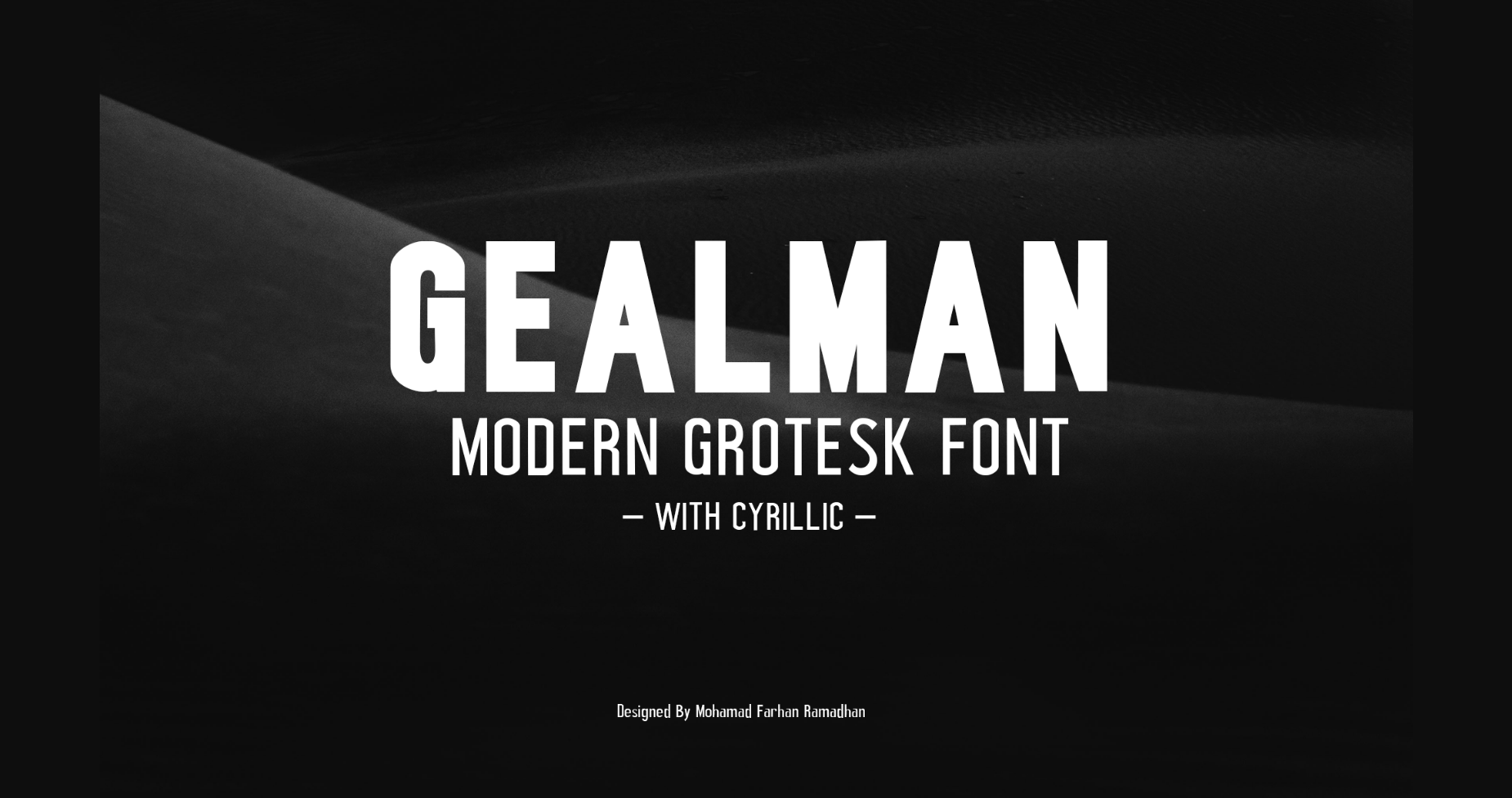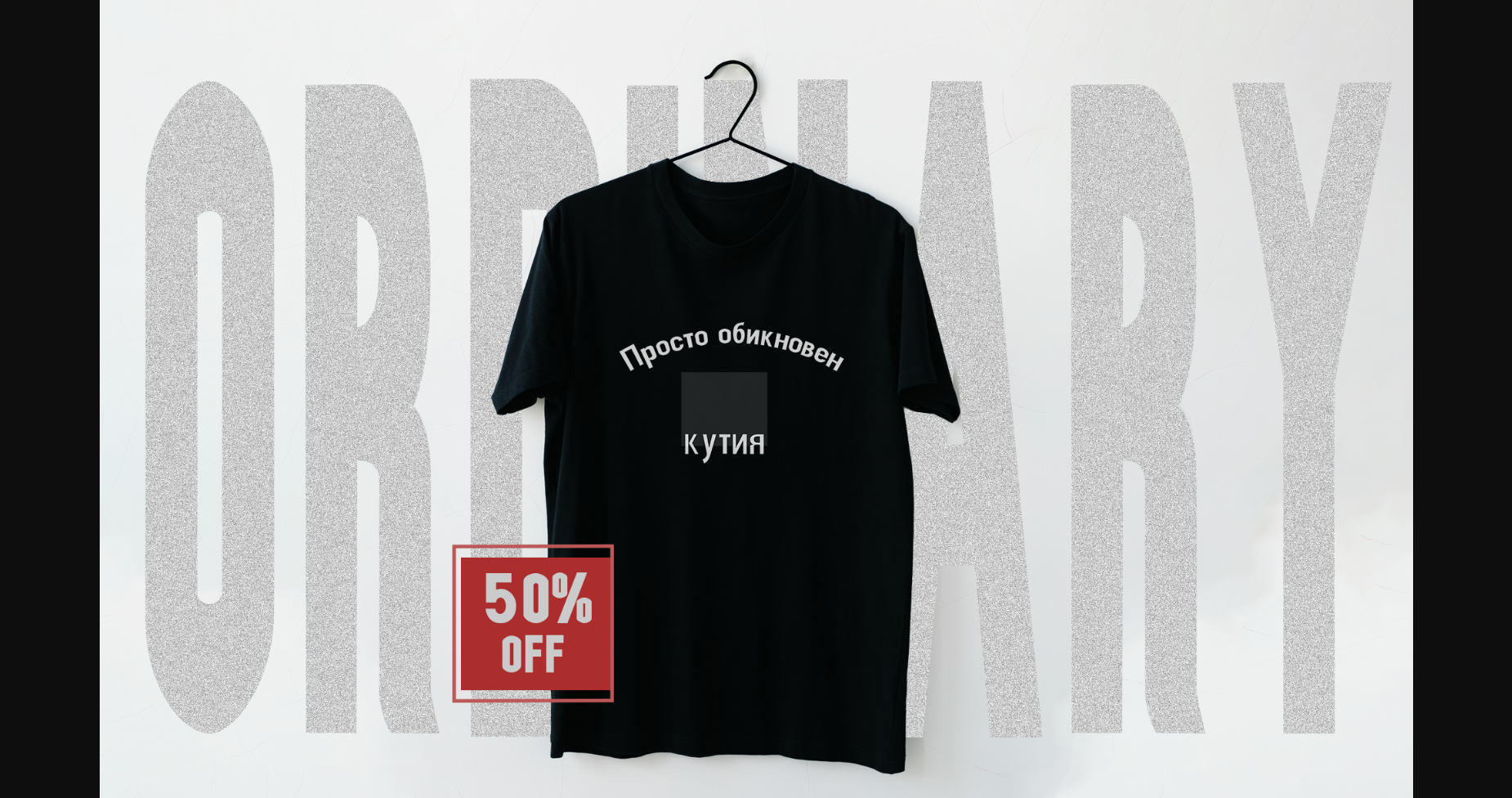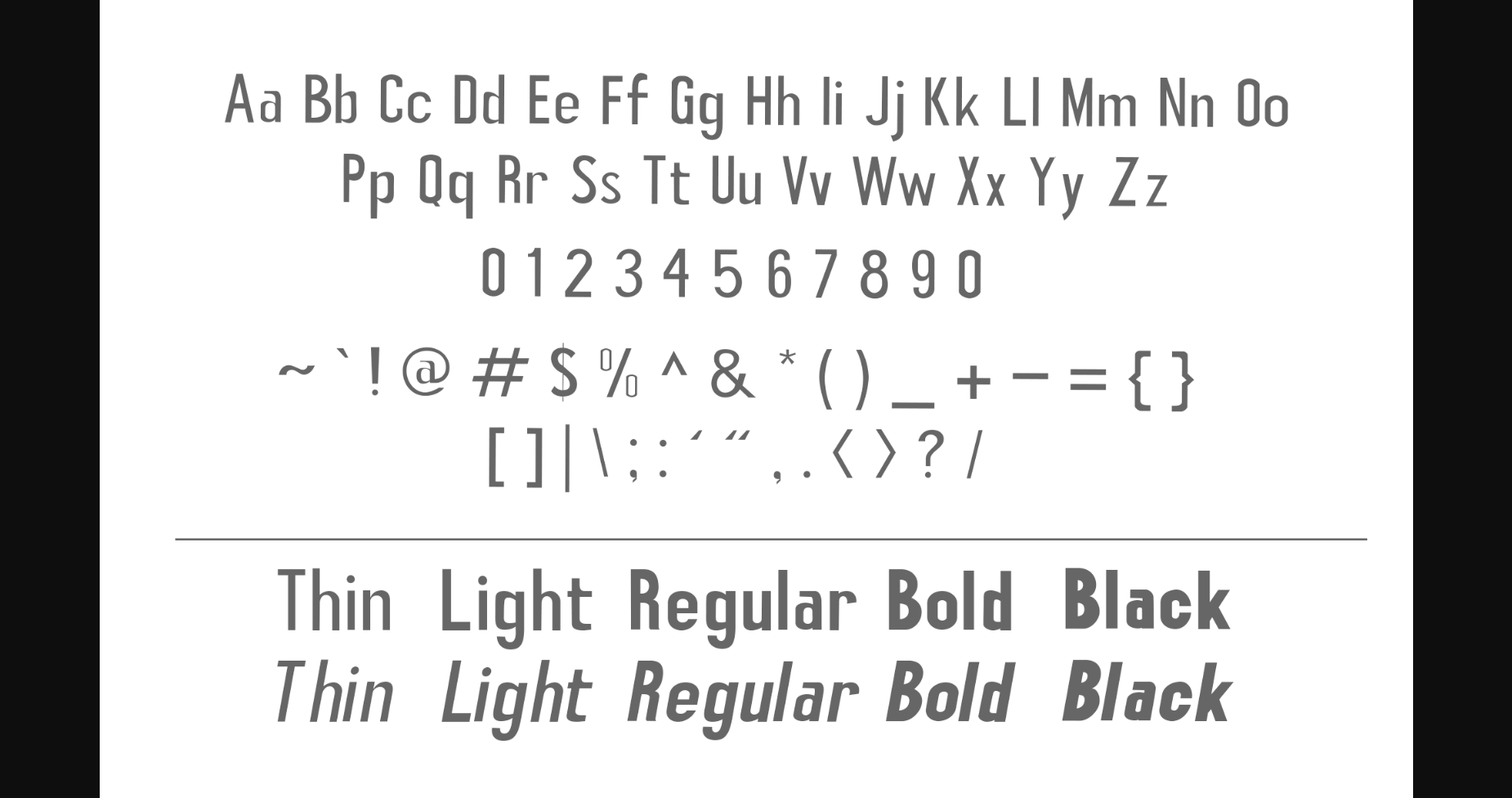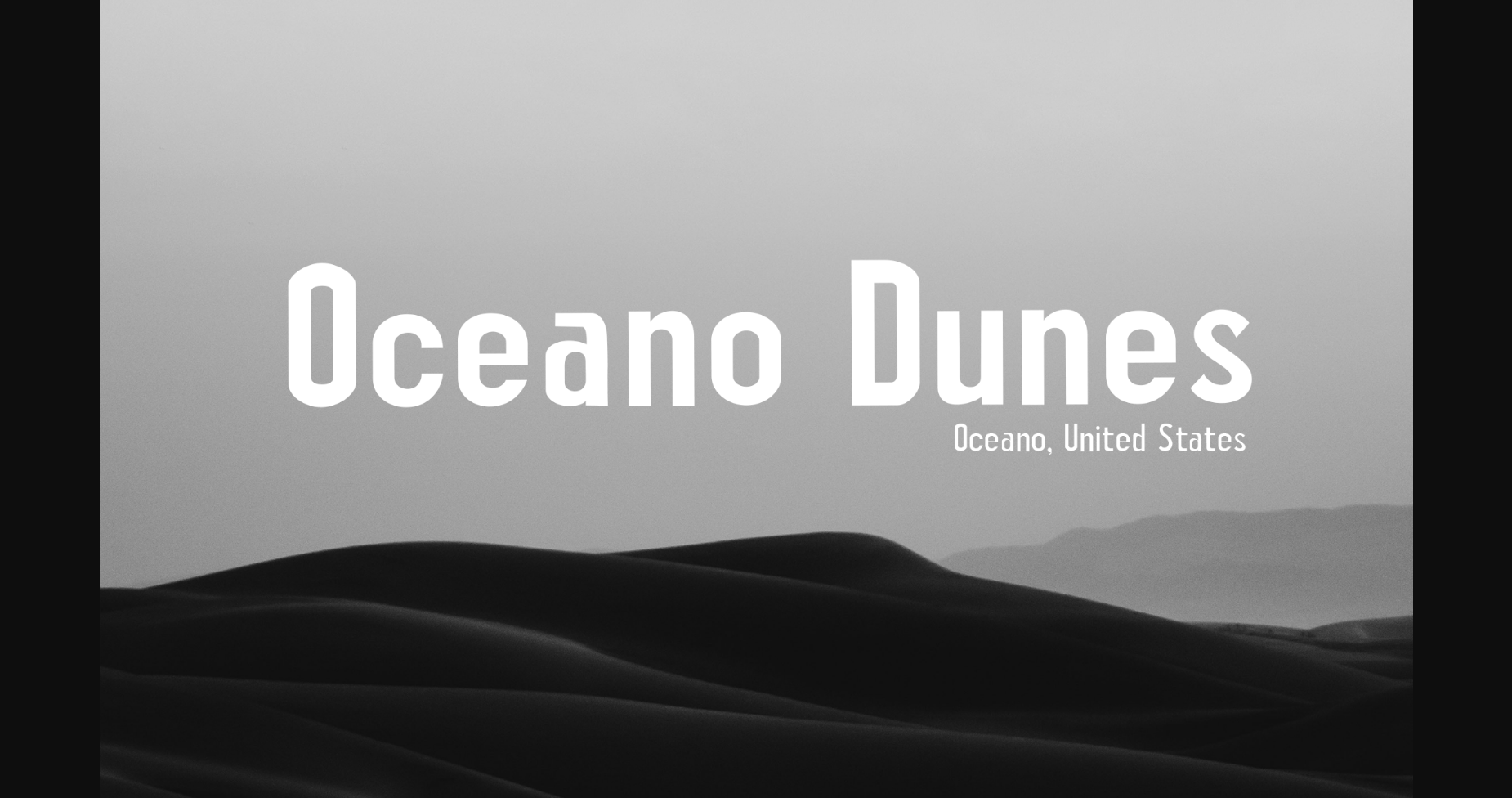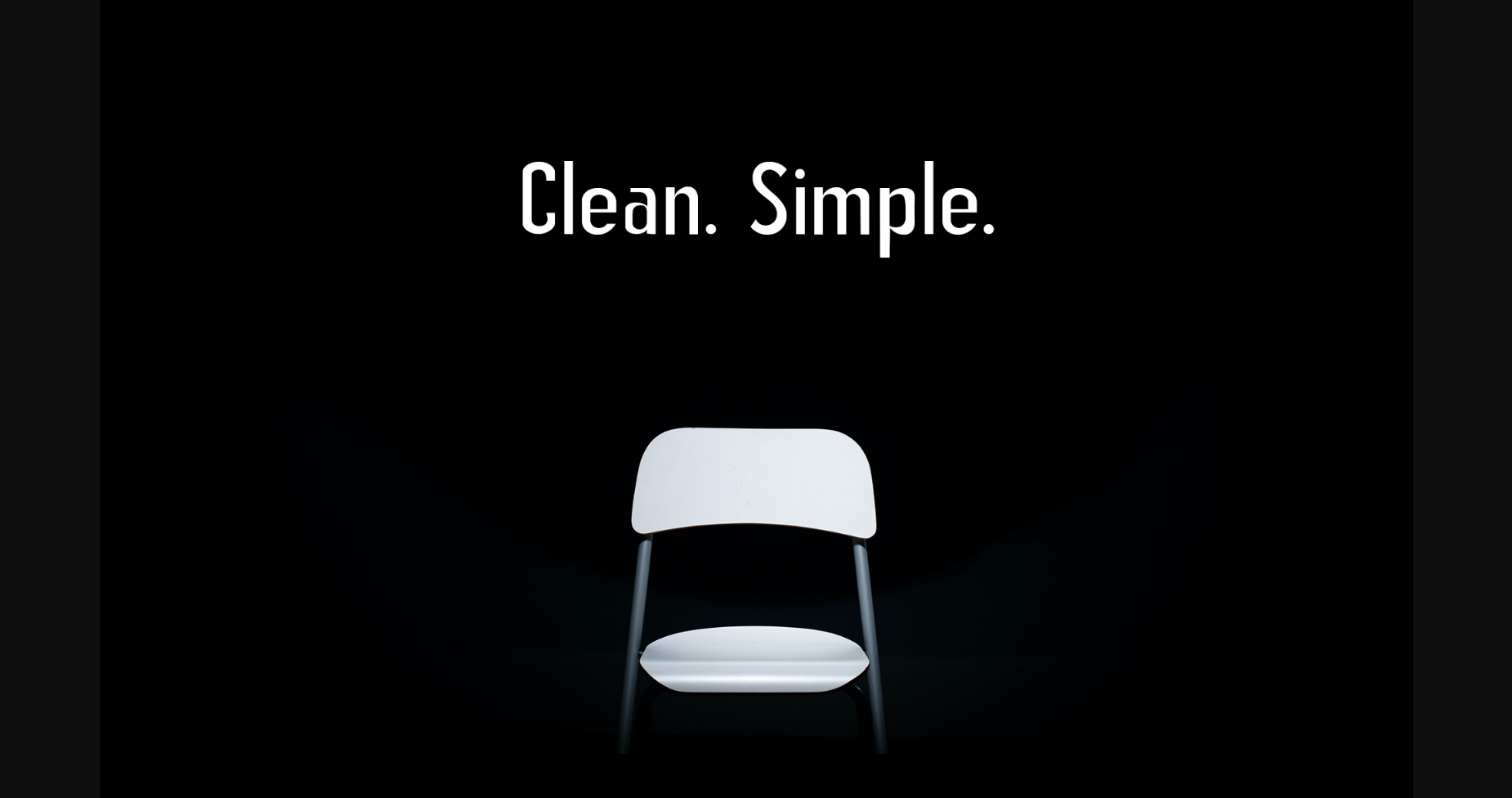
About Gealman Font
Introducing Gealman, the perfect font for all your design needs. Its sleek and modern look, combined with its clean and rigid lines, exudes elegance and versatility. The Grotesk font gives your designs a contemporary edge, making it great for posters, marketing materials, logotypes, headlines, and more. With Gealman, you can easily create professional and eye-catching designs that are sure to impress. Try it out today and elevate your designs to the next level.